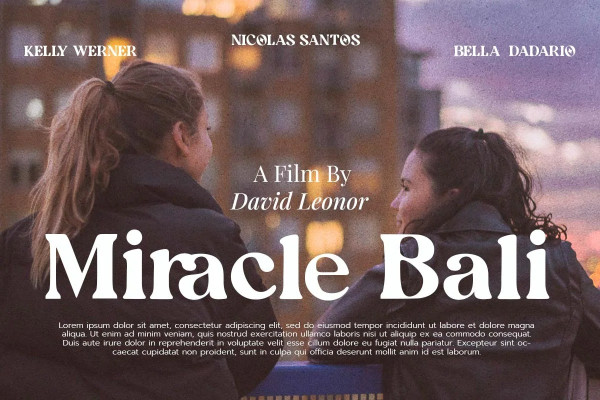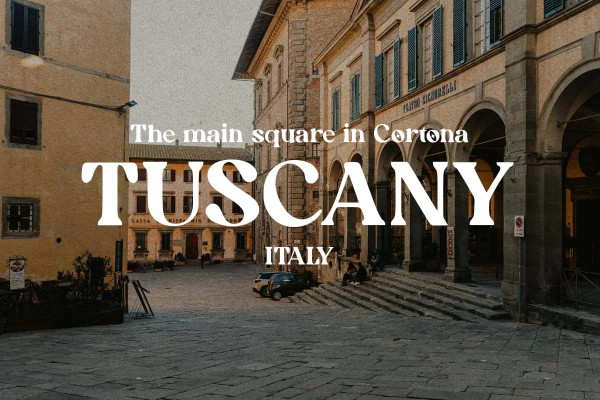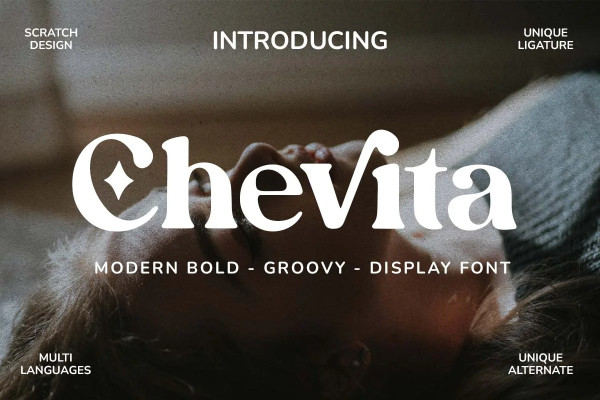
Chevita Font
Chevita Font is an elegant modern groovy and bold font with unique styles. It has beautiful ligatures, alternates and multilingual support. The shape is very versatile and works great in large and small sizes. Perfect for branding projects, Logo design, branding, product packaging, magazine headers, or simply as a stylish text overlay to any background image. You can apply it in OpenType mode in adobe photoshop or adobe illustrator.